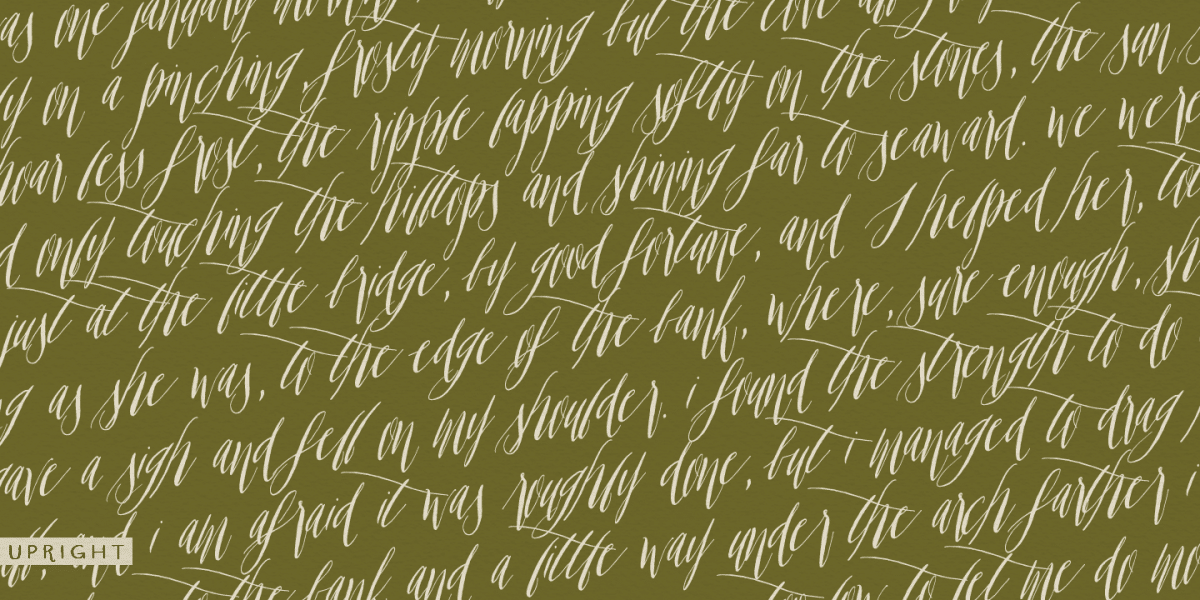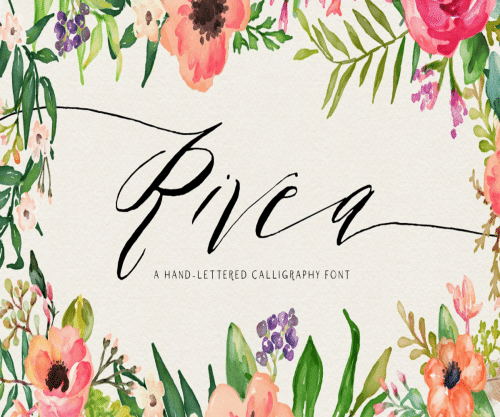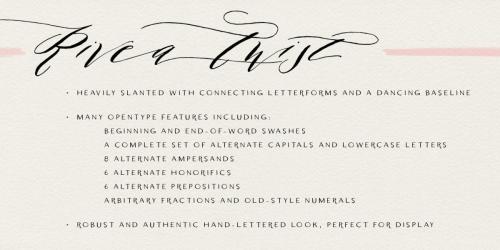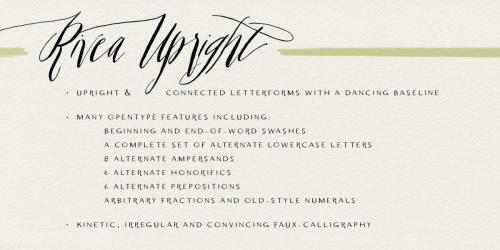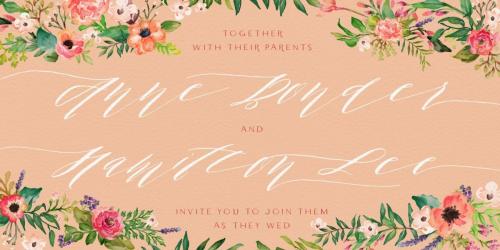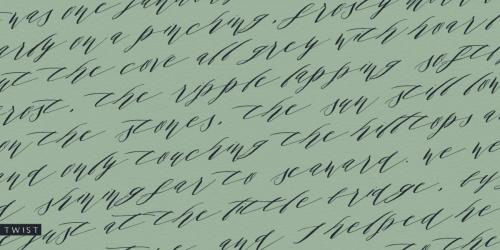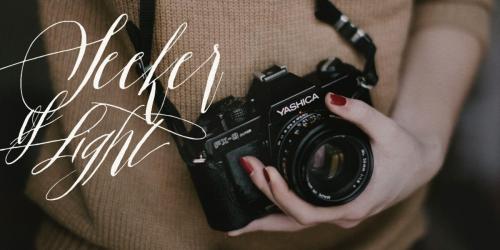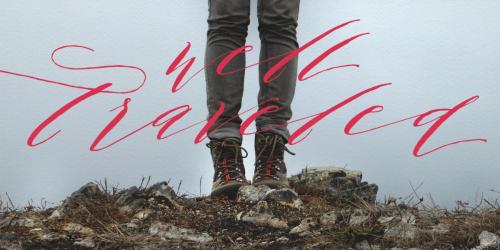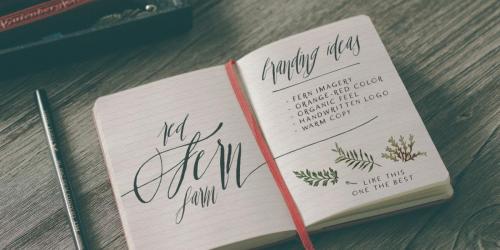
Rivea is two-font, hand-lettered script family designed to mimic real calligraphy. Each font dances along a natural, variable baseline and has a distinctive slant. Long, thin upstrokes contrast with rich downstrokes in a style reminiscent of “wet noodle” pen writing.
Each Opentype font includes eight different ampersands, a swash feature that automatically substitutes beginning & end of word letters, a set of alternate letters, old style numerals, arbitrary fractions, six common “word-art” prepositions and six common honorifics. All Opentype features have been duplicated in Stylistic Sets for Microsoft Word users.